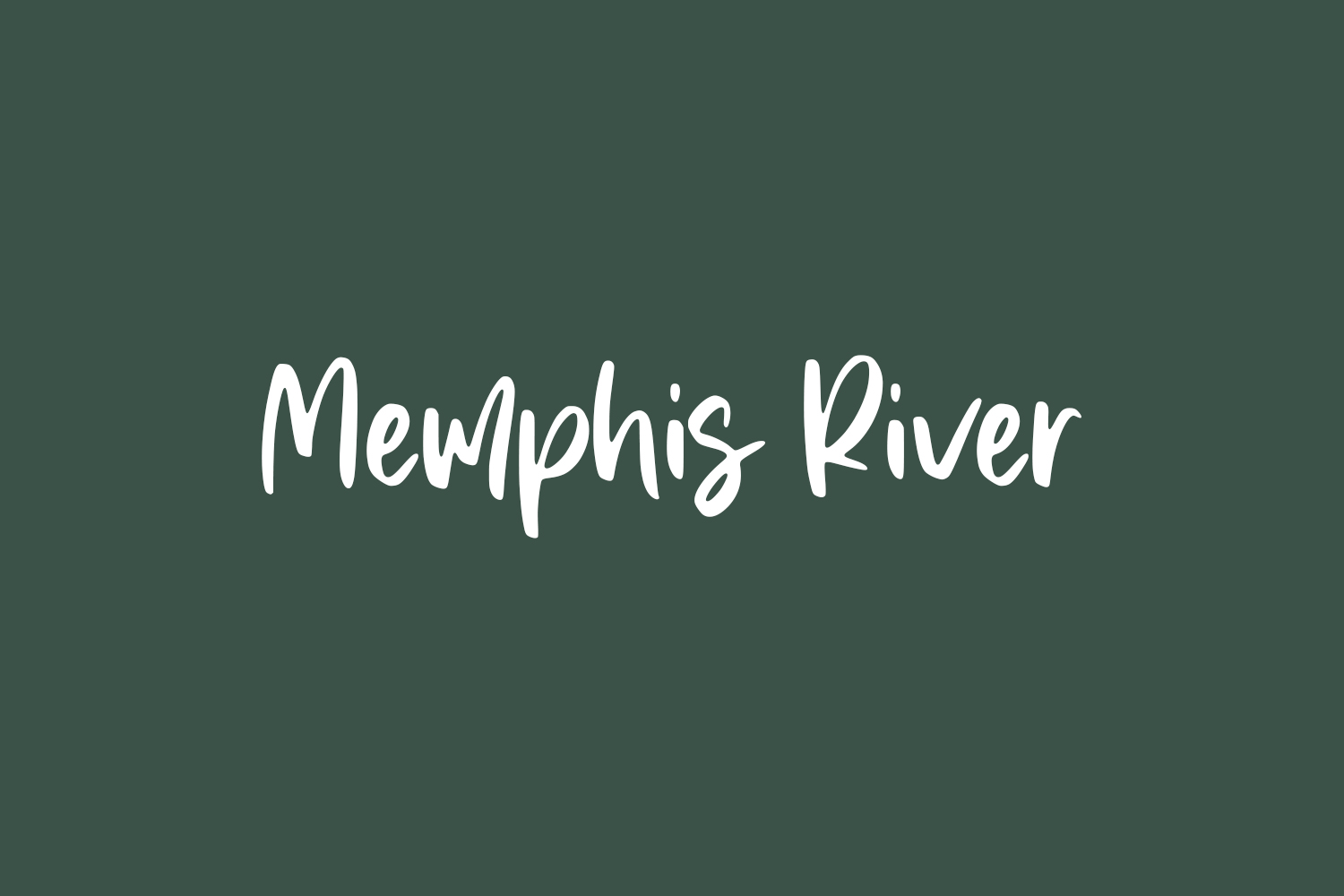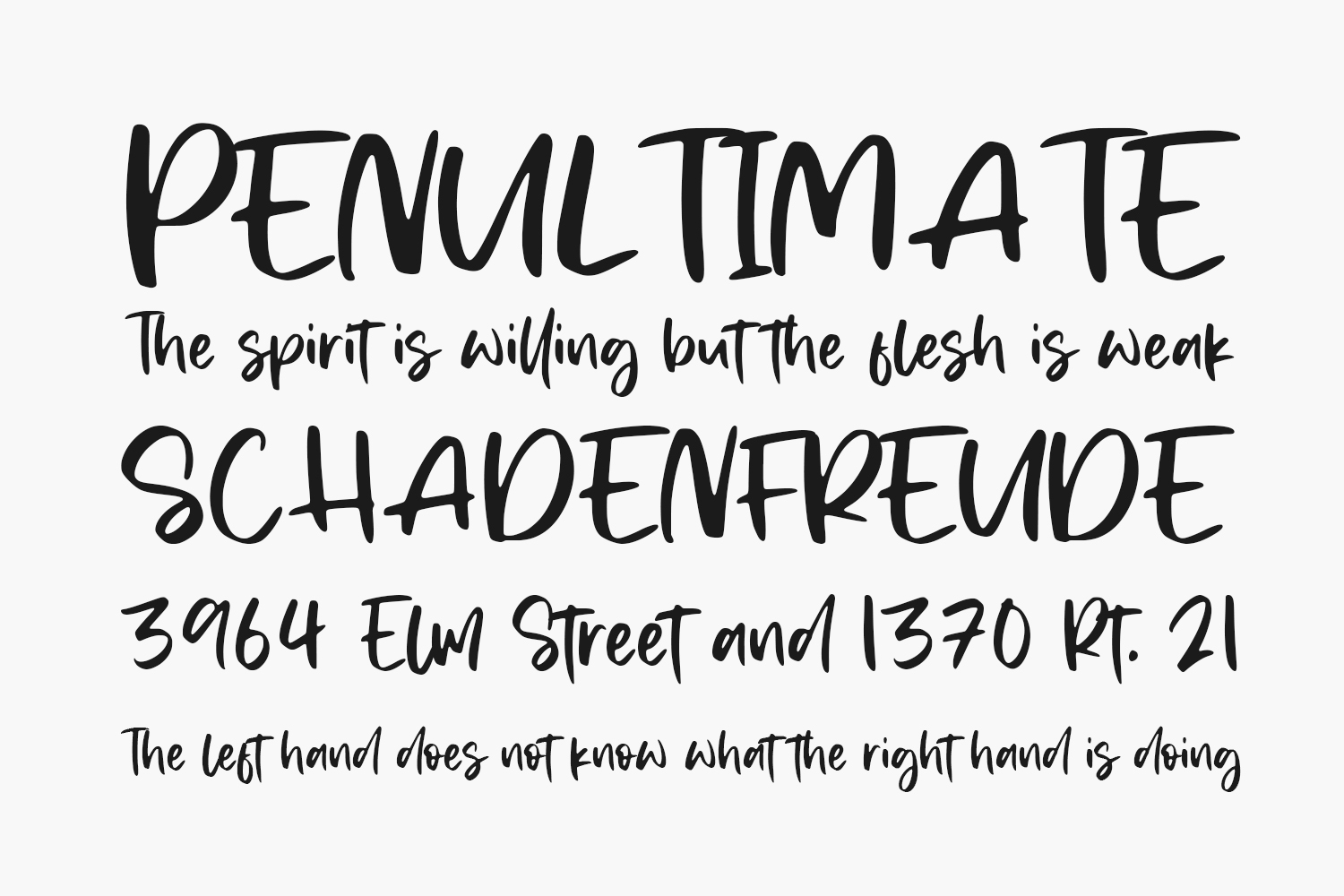
Memphis River Free Font is a unique and elegant handwritten font. It looks beautiful on a variety of designs requiring a personalized style, such as wedding invitations, thank you cards, weddings, greeting cards, logos and so on. Memphis River Free Font was designed by Balpirick Studio and is free for personal use only. Please purchase the full version for commercial use.